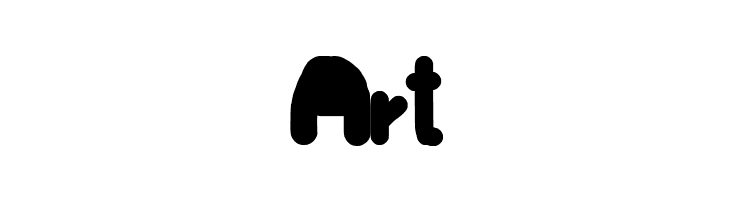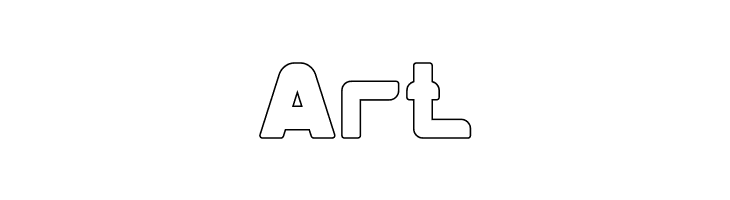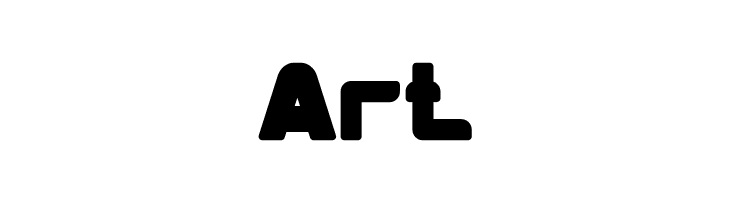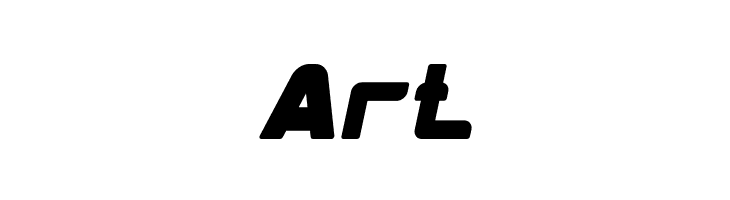
• Father Farmhouse Script
A charming, handwritten script font with a rustic and homey feel.
• Fathyma
A delicate, handwritten font with thin, elegant strokes and a fluid style.
• Fatso
• FC Basic Font
• FD Funky Dots
• Fear of a Punk Planet
A bold, distressed font with a gritty, punk-inspired aesthetic.
• FEATURED Bold
A bold, blocky font with rounded edges and a strong presence.
• FEATURED Bold Italic
A bold, italic, and modern typeface with thick, rounded strokes and tight spacing.
• FEATURED Italic
• FEATURED-Hollow
A bold, geometric font with hollow interiors and a futuristic style.